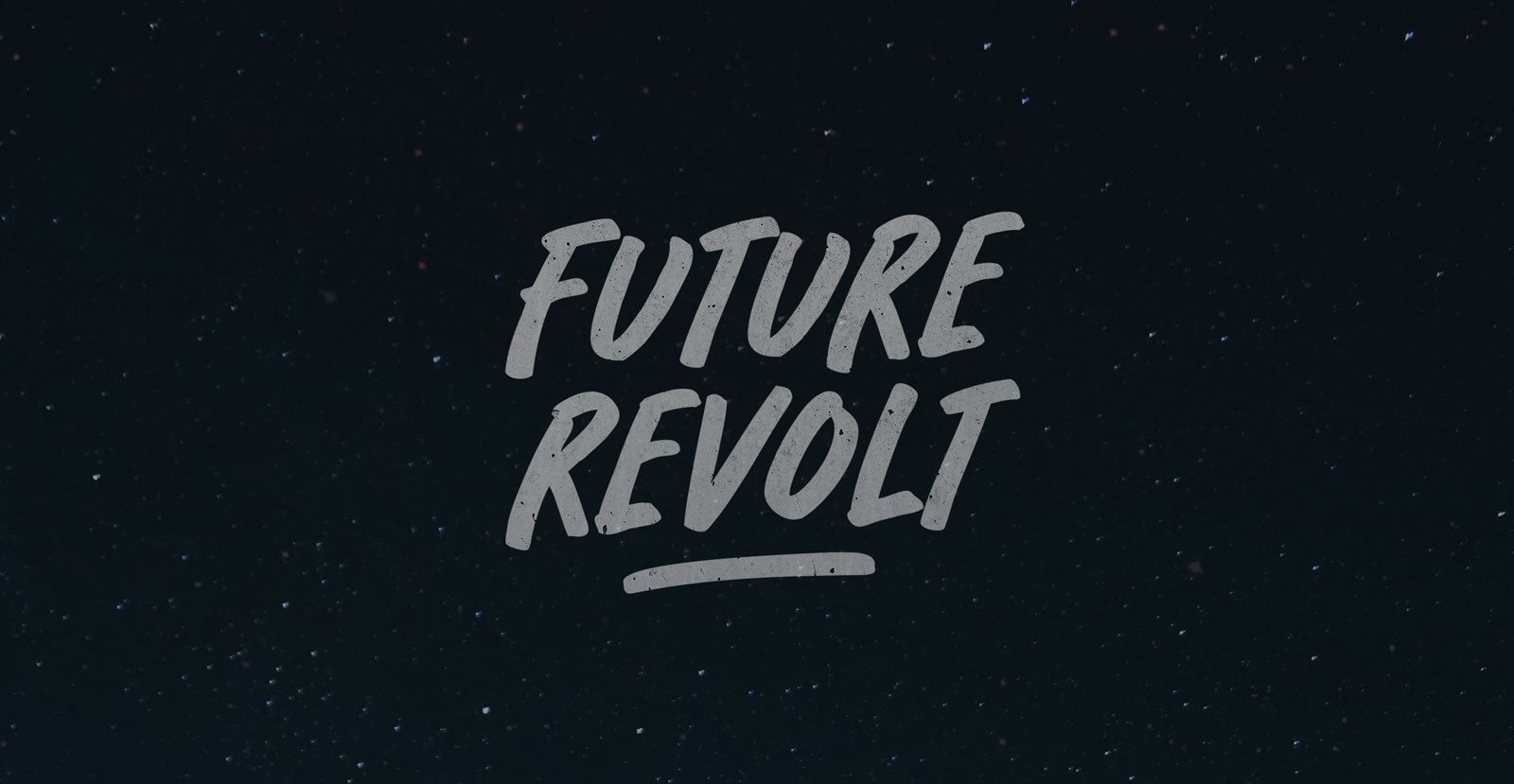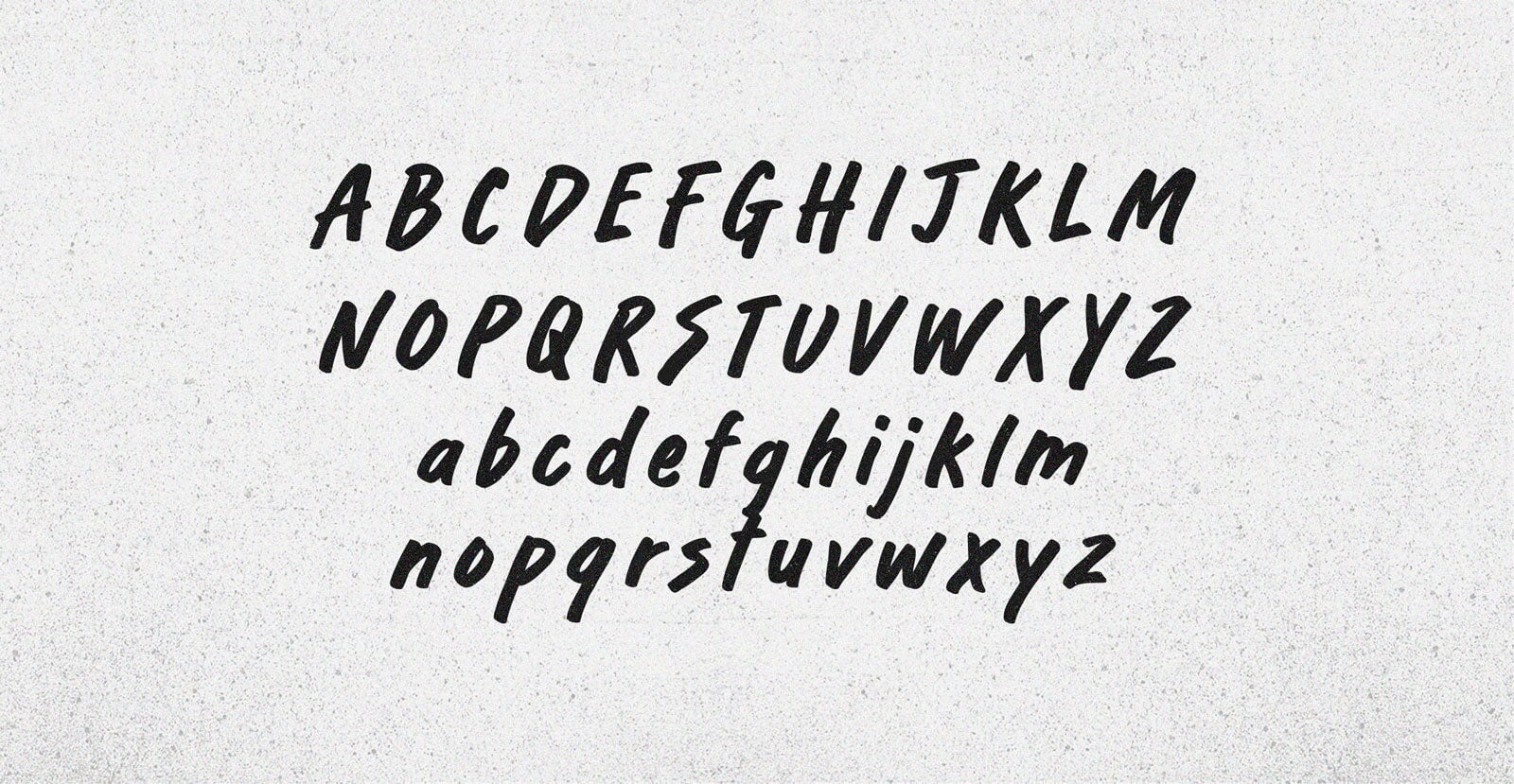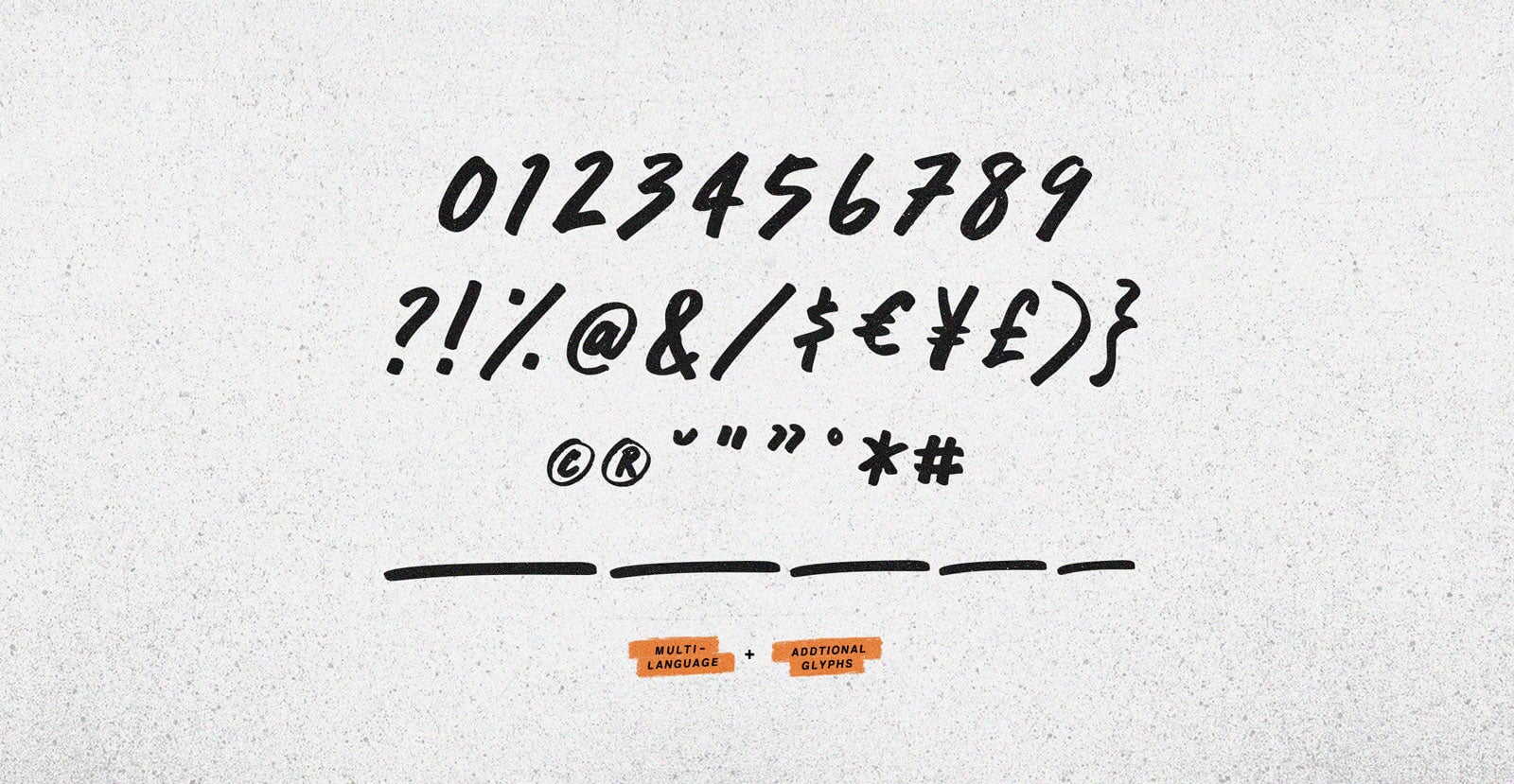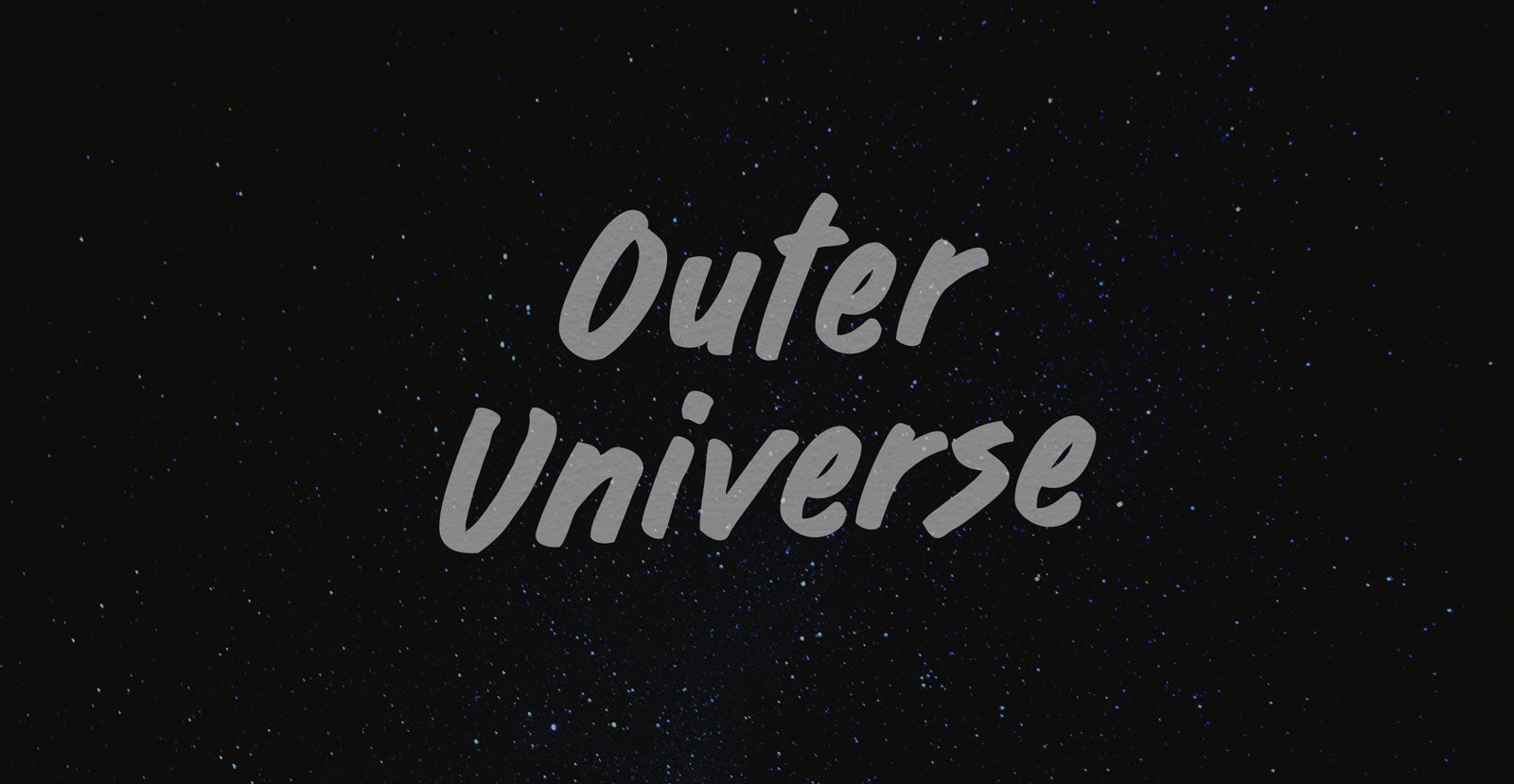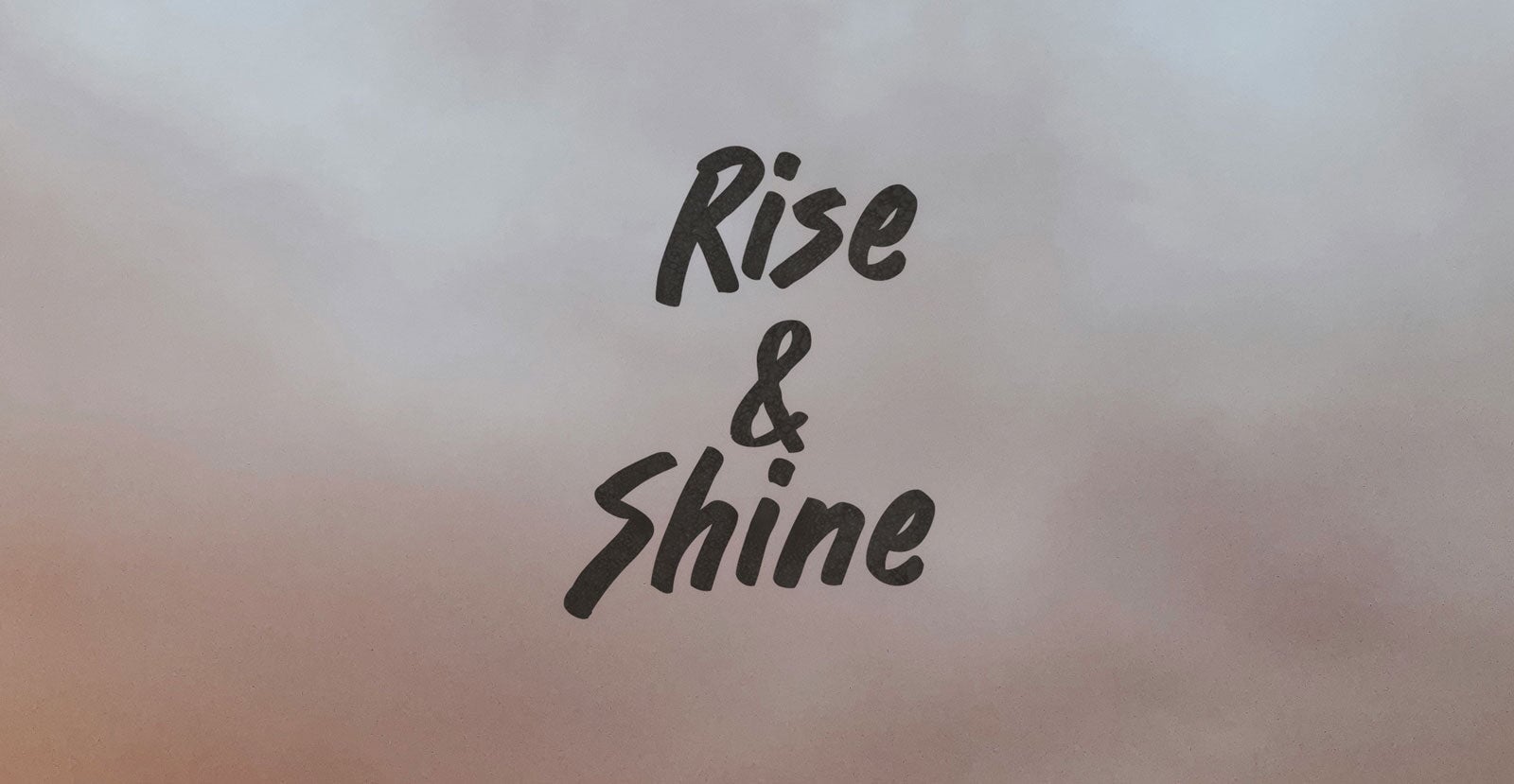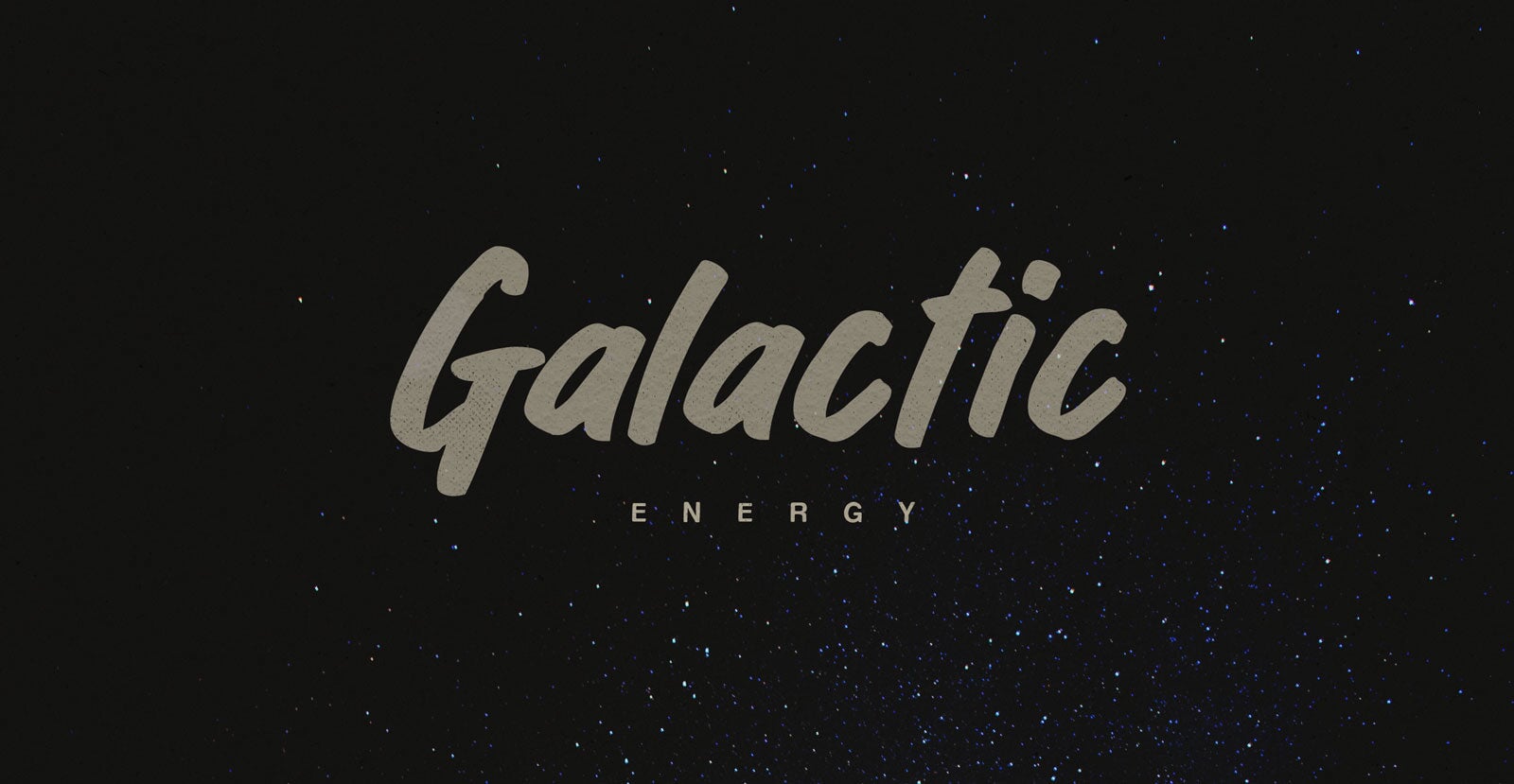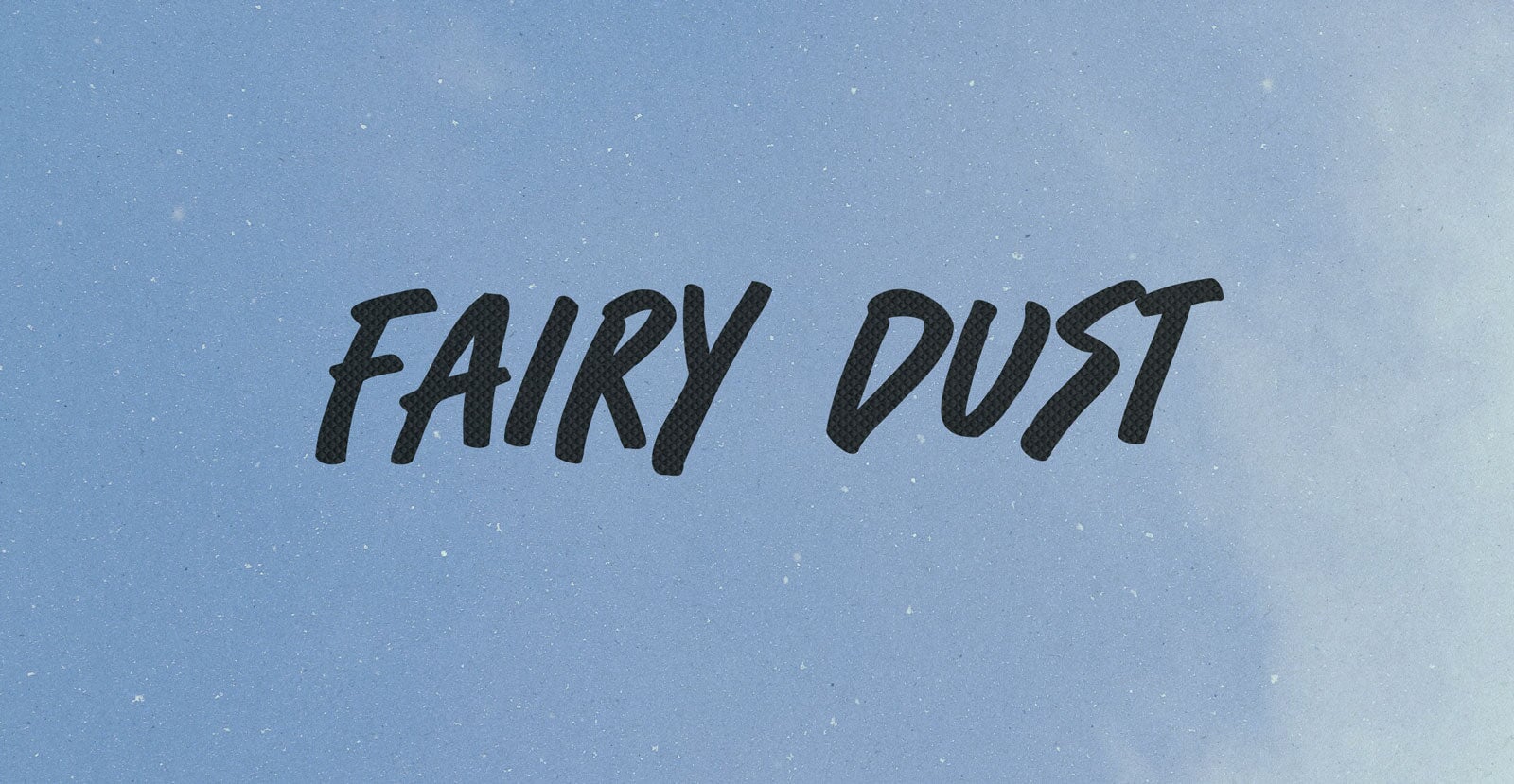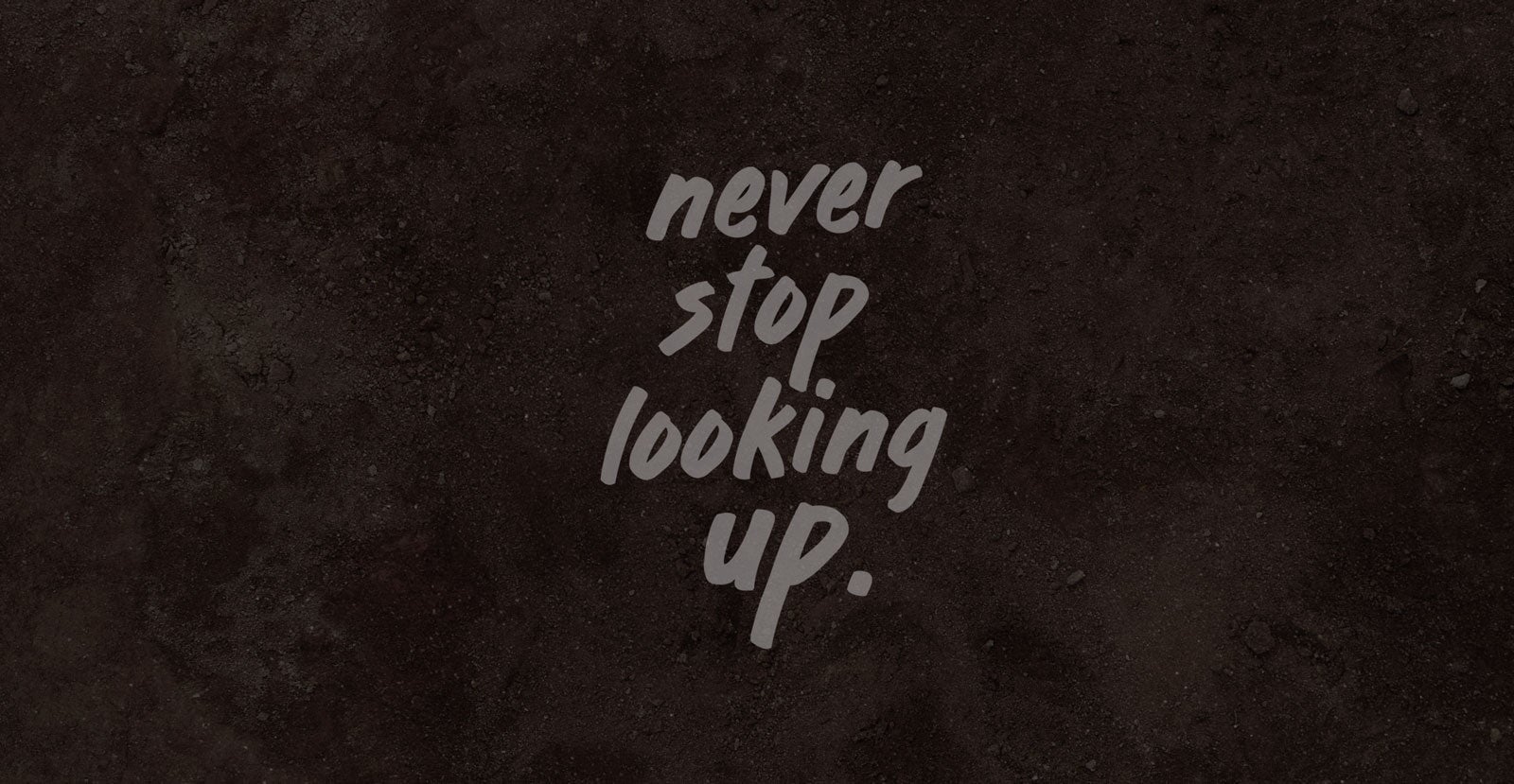
Future Revolt
The static before the signal, the glitch that grows into a rhythm. Shadows of tomorrow flicker in neon, and the ground hums with something about to break free. It’s not progress. It’s not rebellion. It’s both, tangled together, demanding you step inside.